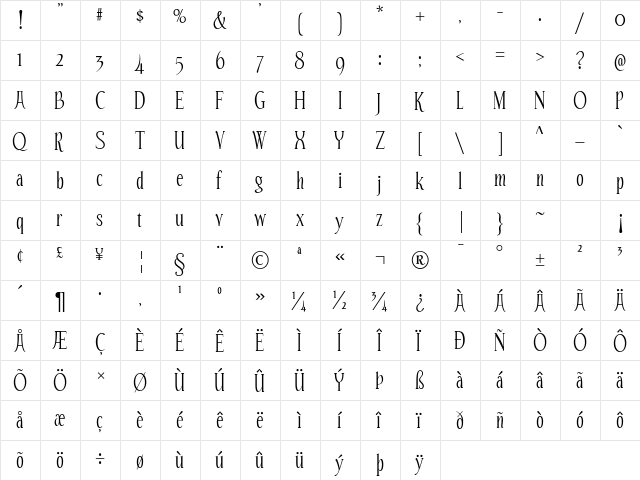
Echelon Regular
Design Context for Echelon Typeface
Echelon takes a measured approach to typography — its balanced proportions and neutral character make it a reliable workhorse for both digital and print work.